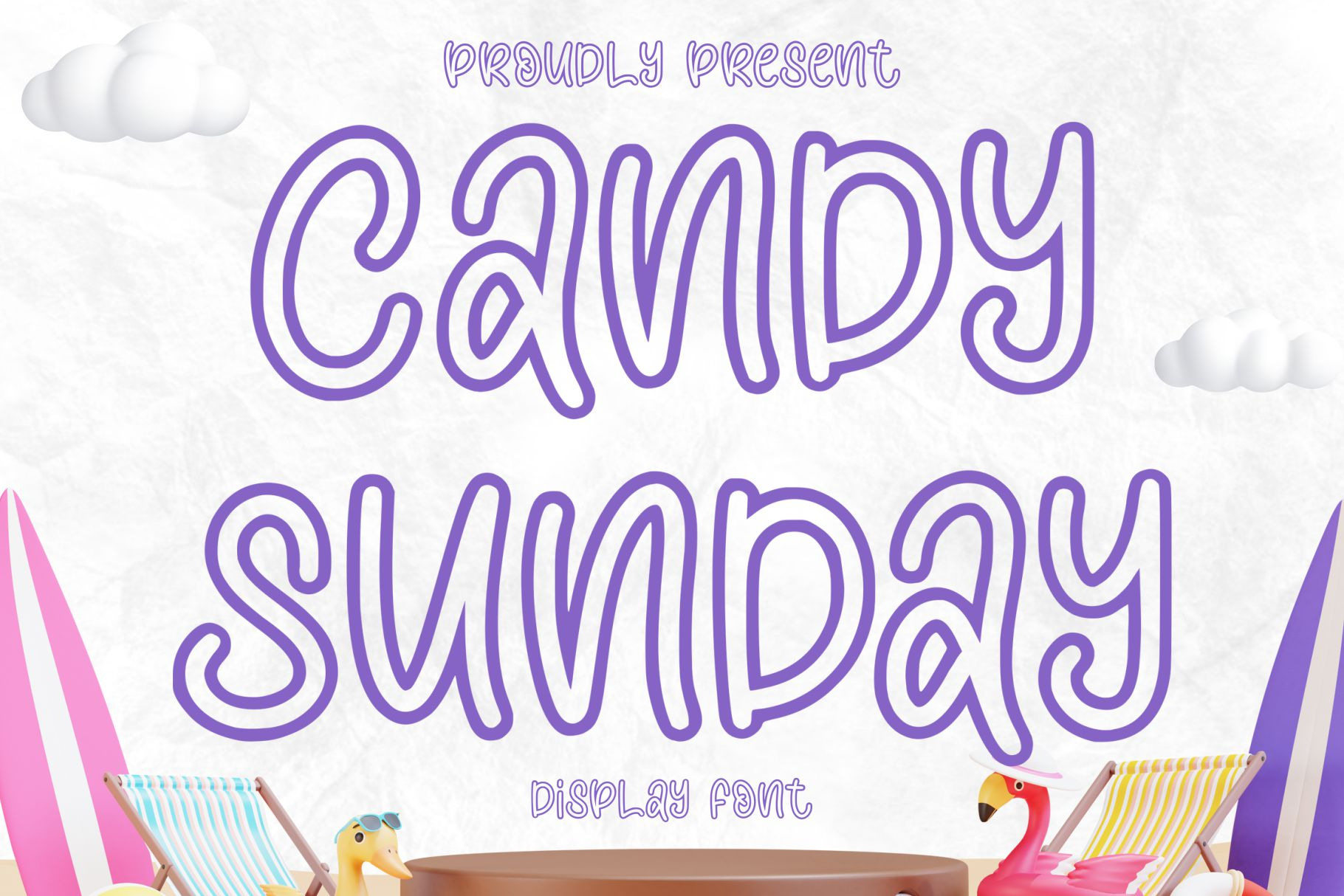
Candy Sunday | Display Font
Candy Sunday is a font that demands attention with its exquisite, bold design. Its intricate detailing and unique letterforms create a powerful, attention-grabbing look that is perfect for advertising, packaging, and branding projects. Attractive Display is the perfect font to make your message stand out with its irresistible charm and visual appeal.